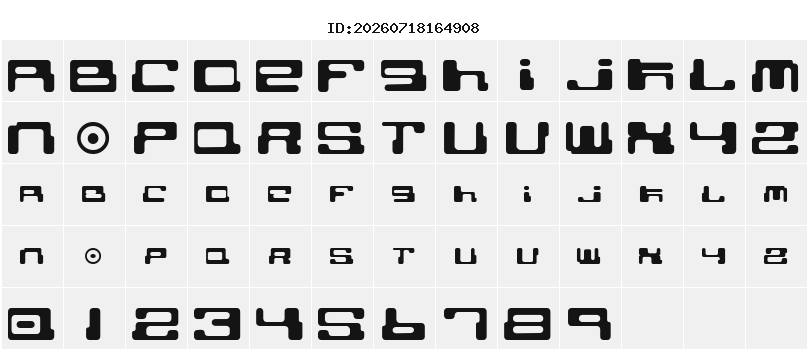
• Font Name: Cybertown Subterranean
About Cybertown Subterranean.ttf
Cybertown Subterranean.ttf is a modern, elegant sans-serif font designed for ultimate readability and visual harmony. Perfect for branding, headlines, web design, and print materials.